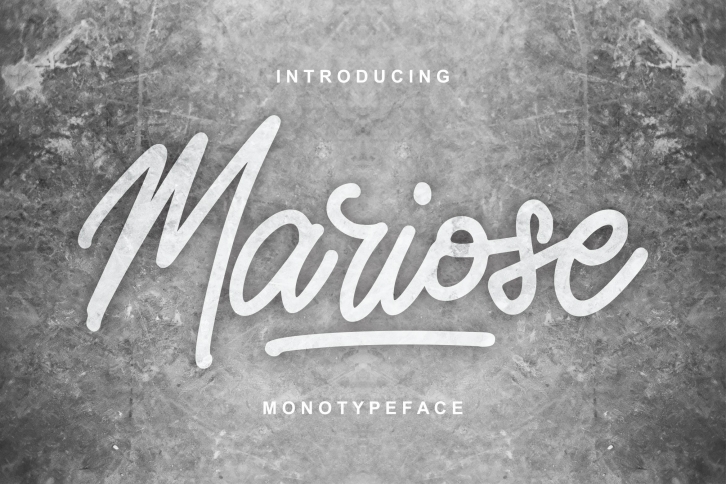
Mariose | Monotypeface Script Font Download
Mariose is a great font that was designed by Vunira. Imagine the amount of combinations you can create using this font! The archive is 5.52 MB and it was released on April 24, 2020. Mariose looks beautiful on wedding invitations, greeting cards, logos, posters, labels, t-shirt designs, logos, business cards and is perfect for use in ink or watercolor works, fashion, magazines, packaging and food menus, children's books and more!